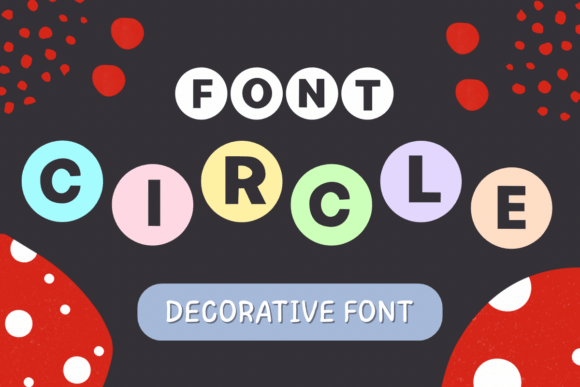
Where Creativity Meets Joy: Introducing Font Circle
Have you ever been working on a project, and suddenly a spark of inspiration hits you? The idea of creating something unique and eye-catching floods your mind, and you can’t wait to bring it to life. This is exactly what Font Circle, a playful decorative typeface, can do for your designs.
This charming font is designed to add a touch of personality and whimsy to any project. With its geometric layout and soft round forms, Font Circle creates a clean yet fun visual rhythm that instantly grabs attention. Perfect for modern designs that crave balance, color, and personality, this font is ideal for logos, posters, packaging, branding, social media, and children’s designs. As a designer, you’ll appreciate the value of Circle Font Font in bringing harmony and happiness to your typography.
Circle Font Font Key Features
- Font Family: Circle Font Font offers a unique, rounded font style that can be used for various design purposes.
- Unique Characteristics: The Circle Font Font features a distinctive, rounded design that can add a touch of elegance and sophistication to any design project.
Circle Font Font Review
I recently had the chance to try out the Circle Font Font, and I’m here to give you the lowdown. Here’s what I think works well:
- ✨ Unique aesthetic: The circle shape of this font is unlike anything I’ve seen before. It adds a touch of whimsy to any design.
- ✨ Customization options: The font comes with a range of customization options, including different sizes, colors, and effects.
- ✨ Easy to use: I found the font to be relatively easy to use, even for a beginner like me.
- ⚠️ Limited font sizes: While the font comes with a range of sizes, they’re not as extensive as I would have liked.
- ⚠️ Not ideal for large blocks of text: Due to the circular shape, this font is best suited for short phrases or headings, rather than large blocks of text.
Overall, I think the Circle Font Font is a great addition to any designer’s toolkit. While it may have some limitations, its unique aesthetic and customization options make it a great choice for projects that require a bit of flair. Just be sure to use it judiciously, and you’ll be golden!
Use Circle Font Font for headings and titles to create a visually appealing and modern design.
Pair Circle Font Font with a sans-serif font for body text to create a clean and balanced design.
Use Circle Font Font for logos, icons, and other graphics to create a unique and recognizable brand identity.